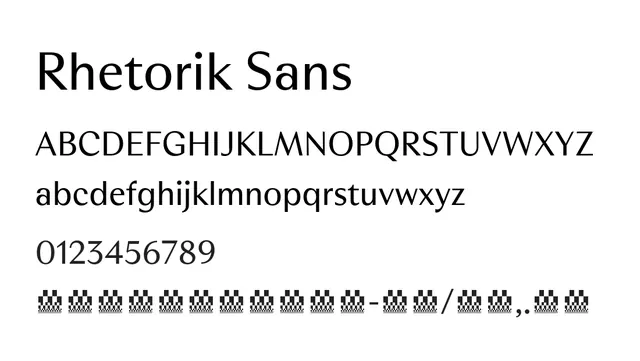
Rhetorik Sans
Refined geometric sans with elegant proportions and subtle minimal detailing, offering geometric purity with a sophisticated touch.
Excellent for contemporary interfaces and publications seeking elegant geometric expression. Works across headlines, body text, and UI. The refined geometry appeals to design-conscious applications.
Pair with Rhetorik Serif for a cohesive typographic system, or combine with Replica for alternative geometric voices.